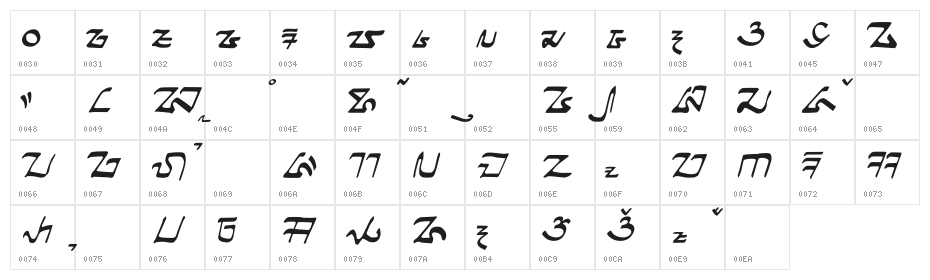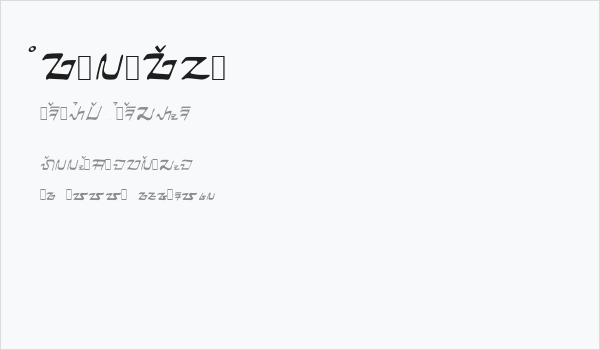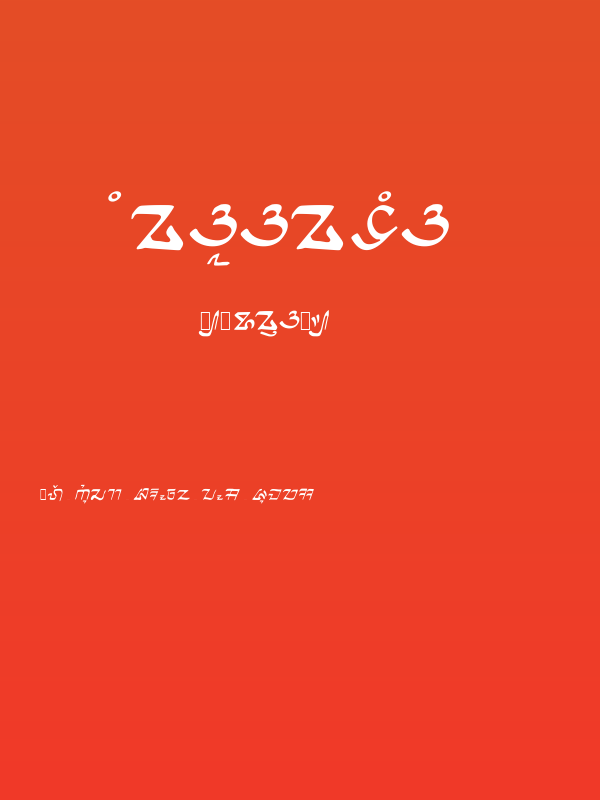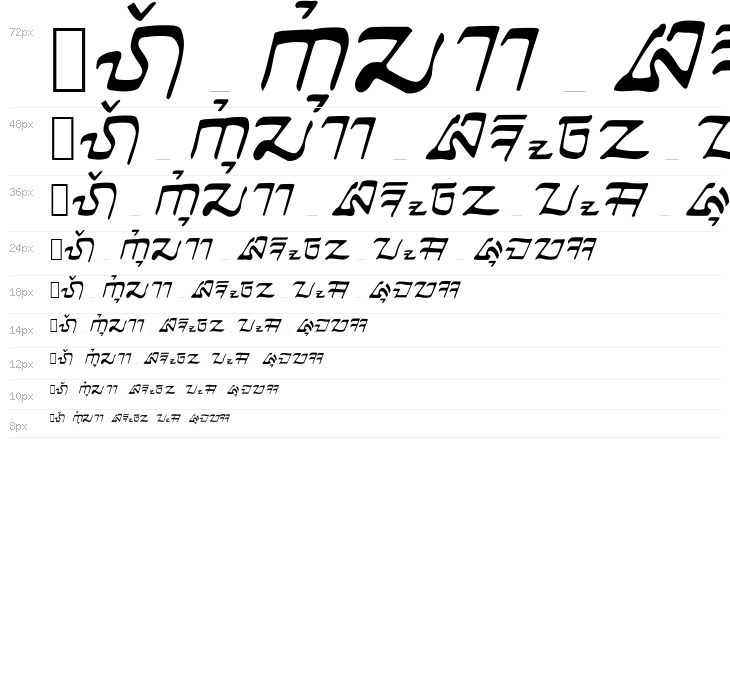
Ngalagena Font
Ngalagena Description
This font features a unique and artistic design, characterized by its bold and angular strokes. The letters exhibit a dynamic flow, with sharp edges and varying line thickness that create a sense of movement and energy. The style is reminiscent of ancient scripts, giving it a mysterious and exotic appearance. The characters are distinct and easily recognizable, making it suitable for creative and decorative purposes. The font's overall aesthetic is both modern and timeless, blending traditional elements with contemporary flair.
| Use Case | Logos, Posters, Artistic projects |
| Proposed Projects | Ideal for artistic projects, branding, posters, and any design work that requires a bold and unique typeface. |